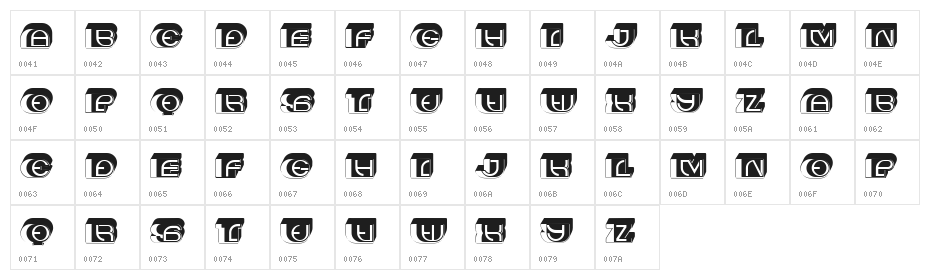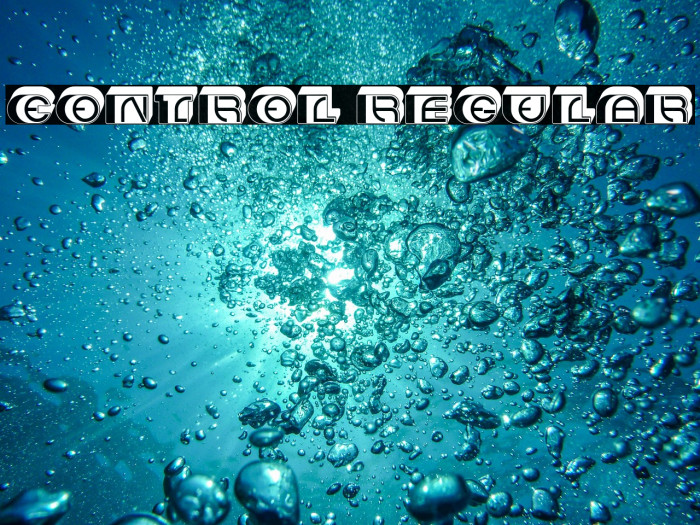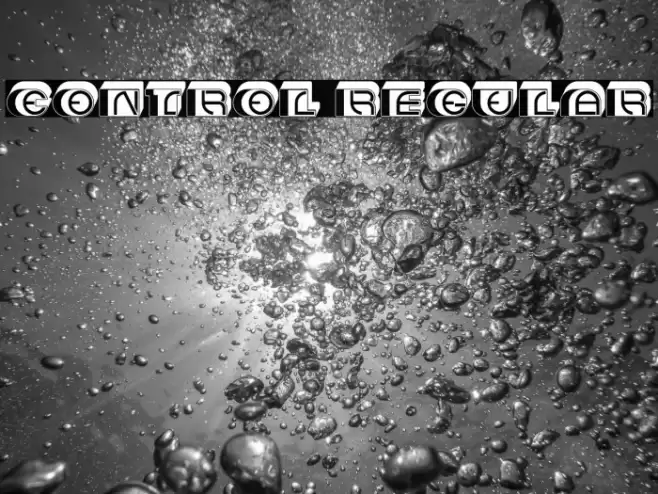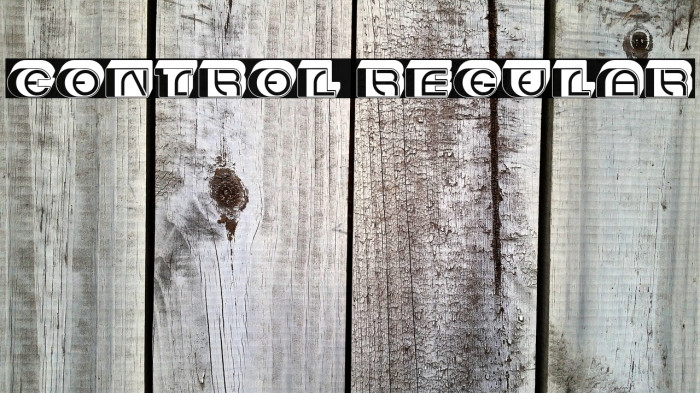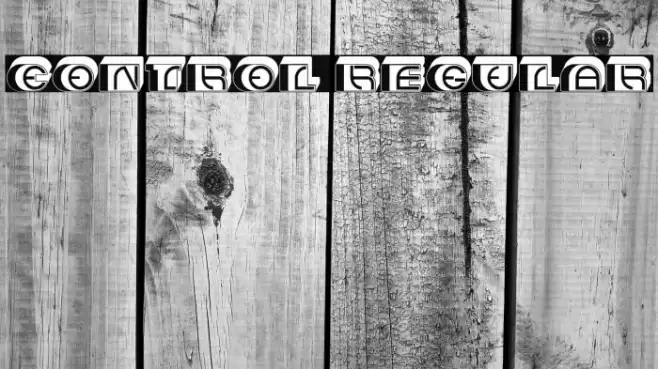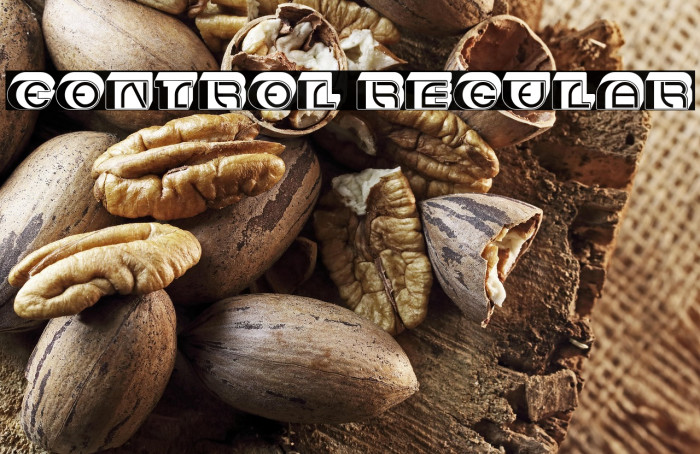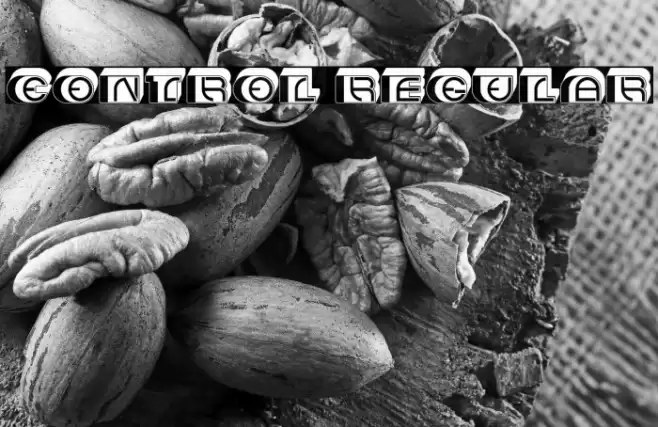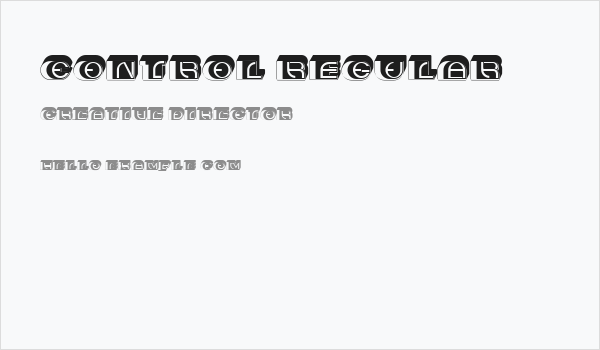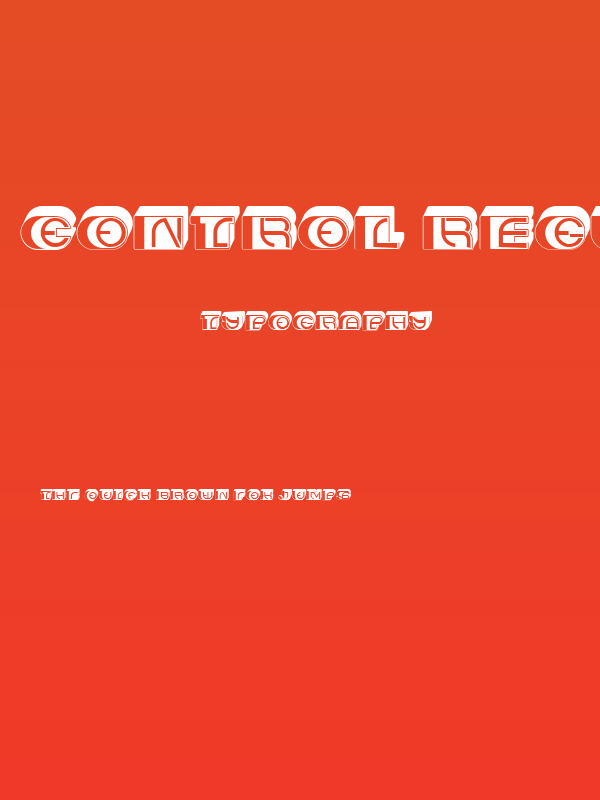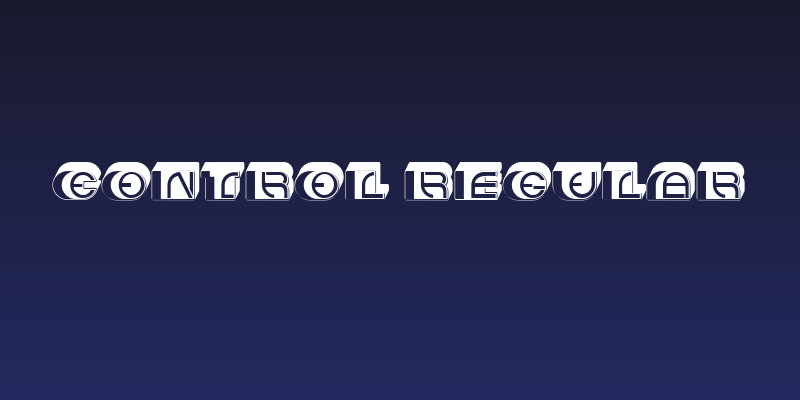
Control Regular Font
Control Regular Description
This font features a bold, three-dimensional design with a strong visual impact. Each character is outlined with a thick black border, creating a shadow effect that gives depth and dimension. The interior of the letters is white, contrasting sharply with the black outlines. This design is highly decorative, making it suitable for eye-catching headlines or titles. The characters are uniformly wide, and the spacing between them is tight, enhancing the compact and cohesive appearance. The font's style is modern and playful, with a touch of retro influence, making it ideal for creative projects that require a bold statement.